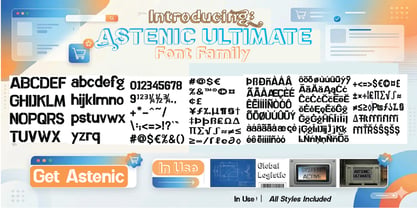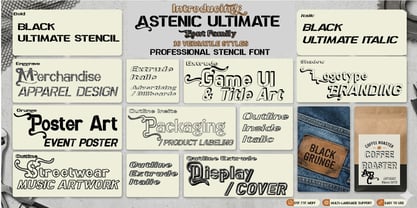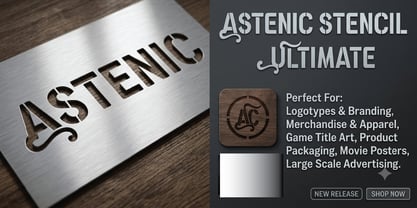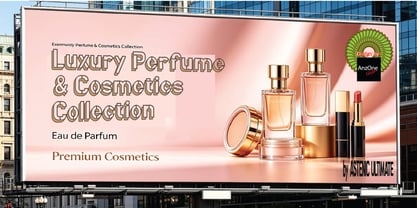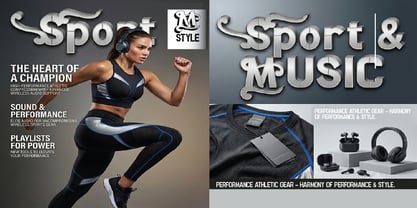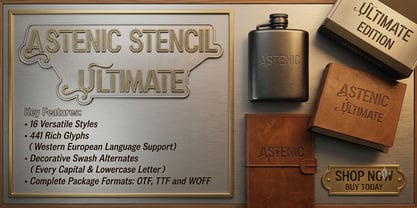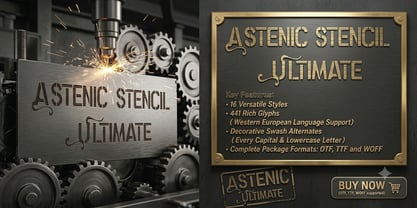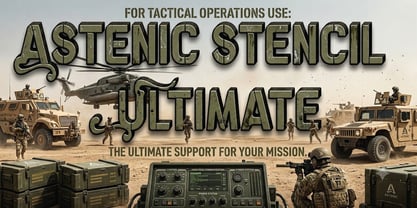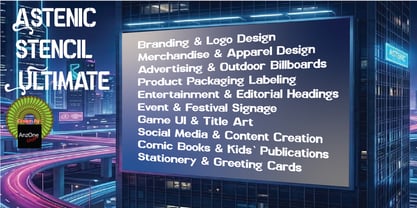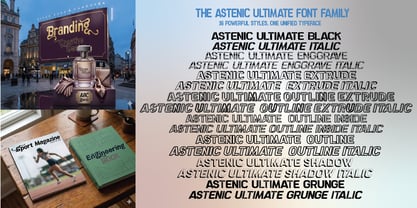
Astenic Stencil Ultimate
The Astenic Stencil Ultimate Font Family was designed by Irwansyah and published by Anzone glyph. Astenic Stencil Ultimate contains 16 styles and family package options. More about this family
Introducing Astemic Stencil Ultimate – The Definitive Military & Industrial Typeface.
Astemic Stencil Ultimate is a powerful, rugged, and meticulously crafted stencil font family designed to command attention. Combining a bold military aesthetic with clean, modern industrial geometry, this typeface is built for high-impact visual communication.
Whether you are designing for action-packed entertainment, tactical gear branding, or modern urban streetwear, Astemic Stencil Ultimate delivers an unmatched presence. It comes packed with multiple styles—including Clean, Oblique, and Italic variants—giving you the ultimate flexibility to create diverse layouts.
Key Features:
• Complete Character Set: Full uppercase, lowercase, numbers, and extensive punctuation.
• Versatile Font Family: Features multiple weights and styles (Regular, Oblique, and Dynamic Italics).
• Advanced OpenType Features: Includes stylistic alternates, ligatures, and multi-language support.
• Optimized Legibility: Engineered to stay sharp and readable at both massive display sizes and small print.
Perfect for:
• Tactical & Military Branding
• Sport & Music Magazine Covers
• Video Game UI & Movie Posters
• Apparel Design & Streetwear Labels
• Packaging, Merchandising, & Signs
Unleash the rugged power of typography with Astemic Stencil Ultimate and elevate your designs today!